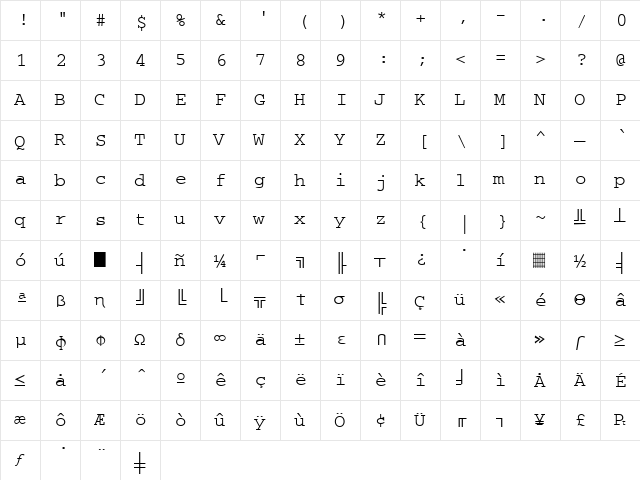
PC-CharSet Regular Font Preview
PC-CharSet Regular
Design Context for PC-CharSet Typeface
PC-CharSet takes a measured approach to typography — its balanced proportions and neutral character make it a reliable workhorse for both digital and print work.